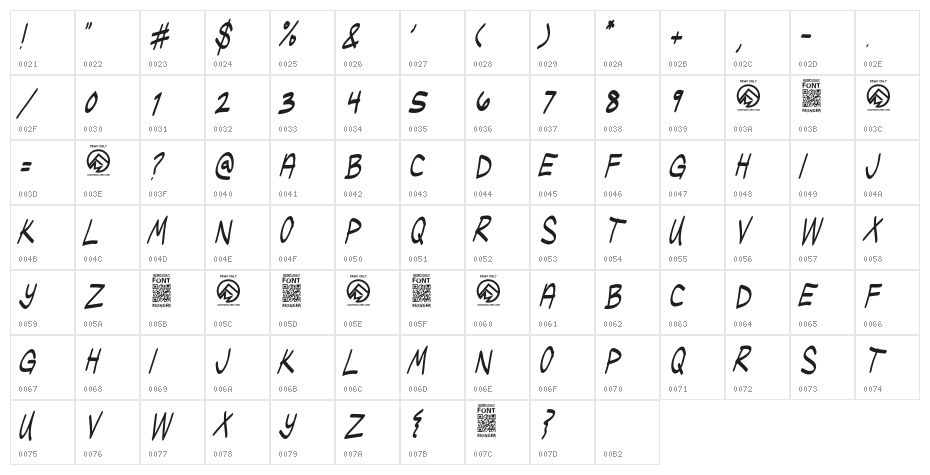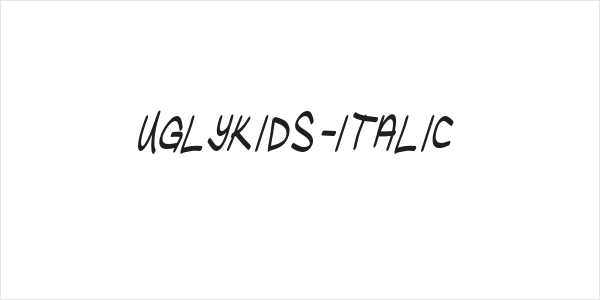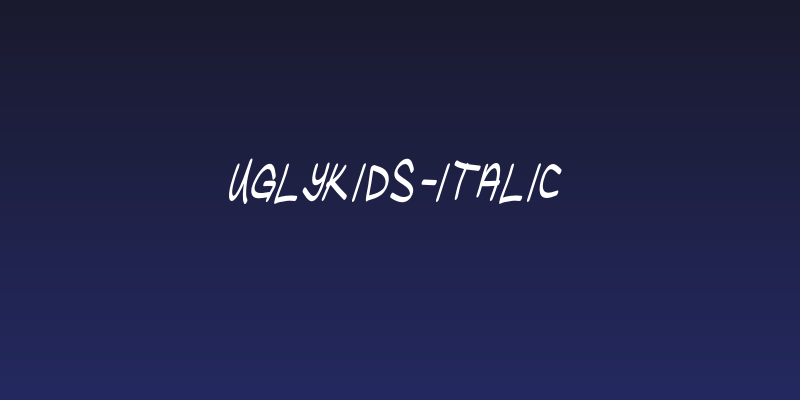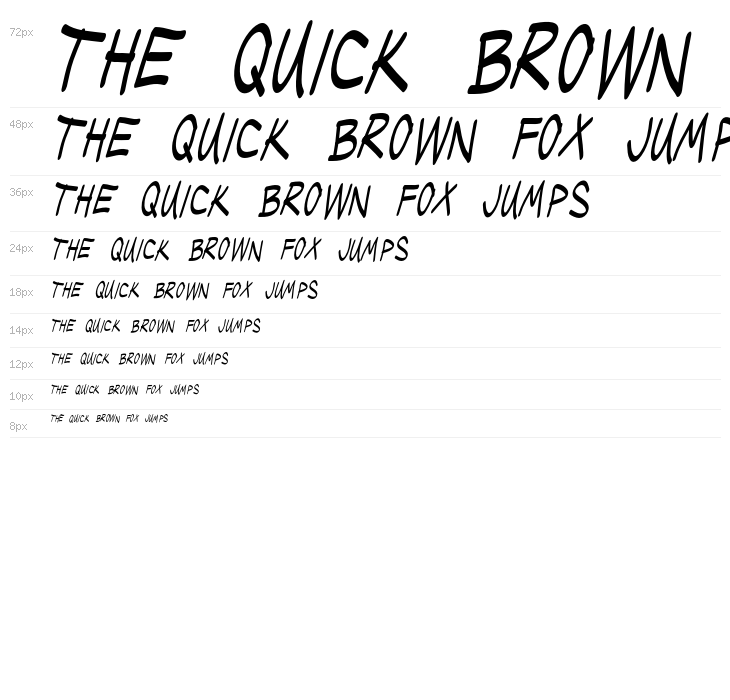
UglyKids-Italic Font
UglyKids-Italic Description
This font features a playful and energetic style, characterized by its handwritten appearance with a slight slant, giving it an italicized look. The letters are bold and have a casual, informal vibe, making them suitable for creative and fun projects. The strokes are consistent in thickness, providing a uniform look across all characters. The font includes both uppercase and lowercase letters, numerals, and a variety of special characters, ensuring versatility in usage. The overall design is dynamic and lively, perfect for capturing attention and conveying a sense of spontaneity.
| Overall Style | Playful, Informal |
| Proposed Projects | Ideal for children's book covers, playful branding, greeting cards, and informal invitations. |